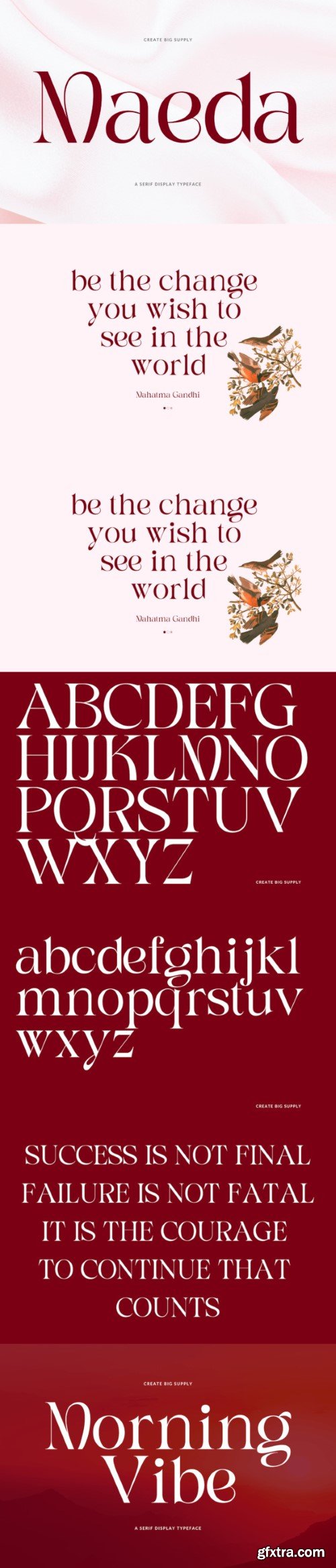
Maeda includes both capital and small letters, providing flexibility for different design purposes. Whether you are creating refined logos, polished branding materials, or engaging editorial layouts, Maeda's distinct serif font brings a sense of uniqueness to your projects. With a wide range of numbers and punctuation marks, Maeda guarantees a clear and efficient delivery of your message on various platforms and media. Its ability to support multiple languages enables you to effortlessly connect with global audiences, making it ideal for international projects. Featuring PUA Encoding, Maeda offers convenient access to special characters, enriching your design options and artistic expression.